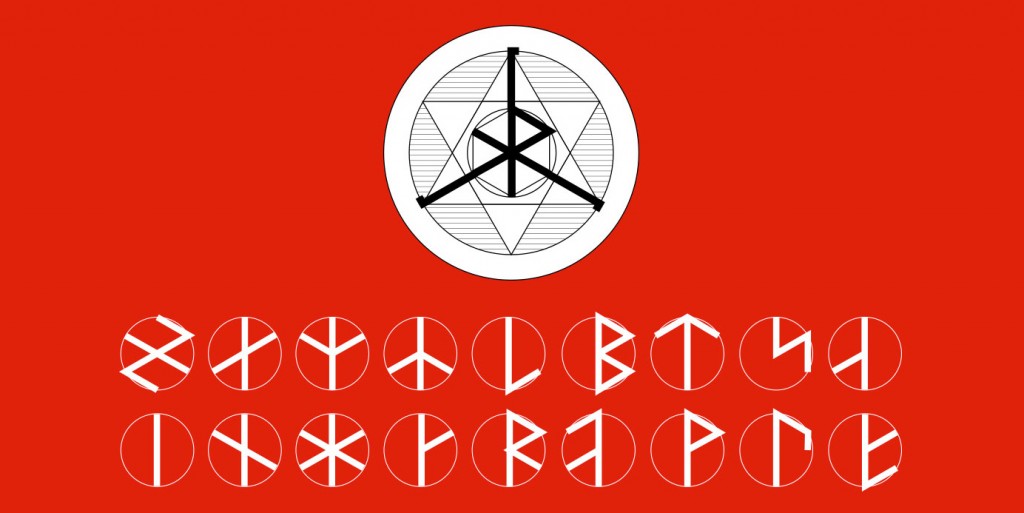
Name: Weltschrift
Designers: Vito Bica and Selma Köran
Foundry: Vito Bica
Release Date: April 2016
Back story: How do type designers fight racism? What’s the most powerful weapon at their disposal? That’s something Bica explored with Weltschrift, a typeface he designed to make a statement against racism, specifically anti-Semitism. Bica, who is of German-Sicilian origin, started the ambitious project by researching the work of Guido von List, an early 20th-century Austrian occultist who interpreted the Elder Futhark runic alphabet used by Germanic tribes from the second to the eighth centuries. Von List developed a hexagonal typographic language in the support of Völkism, the revival of 12th-century Teutonic traditions that gained popularity in Germany just before WWI and continuing into the WWII era.
His work, in turn, influenced Nazi typography, including the double lightning bolts of the Schutzstaffel (SS), which maintained the police state of Nazi Germany under the supervision of Heinrich Himmler. Since then, the symbol has been widely adopted by white supremacists. The Nazis commandeered other runes, too, like the Wolfsangel (used as part of the divisional insignia of several SS units, including the notorious “Das Reich” Panzer Division, and incorporated by the contemporary neo-Nazi group Aryan Nations into their logo) and the Tyr (a simple arrow appropriated for the leadership schools of Hitler’s Brownshirts and an SS infantry division).
Instead of letting these marks live on as symbols of evil, Bica’s new typeface gives them new meaning, subverting the Nazi’s approach to iconography by embedding parts of the runic-derived signs into Weltschrift’s letterforms—and then using the typeface to create anti-hate posters. What’s more powerful than owning and reappropriating the language of your oppressors?
Of course, not everyone sees it that way. According to Steve Heller, author of Iron Fists: Branding the 20th Century Totalitarian State, “The problem with fighting a war against war or designing a typeface against racism or prejudice, at least in this case, is that the same images and symbols the Nazis usurped are used. The Runes were not originally anti-Semitic. The swastika, at one time, had positive implications. But add red and black and [other] aggressive characteristics and the meaning is compromised… the letters remain tied to Nazism.”
Why’s it called Weltschrift? Weltschrift means “World Type” in German, an ironic reference to the title of a 1938 book, German as a World Language, which championed making German the primary language across the globe.
What are its distinguishing characteristics? This typeface is pointy, barbed, aggressive, and all around harsh-looking. It also has kind of a metaphoric narrative quality from the hidden symbols within its characters.
What should I use it for? Its very specific design limits the ways it can be used, but also makes it an appropriate choice for editorial headlines on stories that deal with race and prejudice. Too heavy for running text, this display face is probably best for posters and publications when you feel the need to really shout to get a message across.
Who’s it friends with? Best to keep its companions simple and ultra-legible. The Nazis came to accept Modernist typefaces once they realized that their beloved blackletter fonts such as Fette Fraktur were hard to read in propaganda posters and handbills; by 1935 they were using faces like Paul Renner’s Antiqua and Futura, and Akzidenz Grotesk. Pairing any of these with Weltschrift can be seen as an extra slap at hatred, by using these old choices in direct opposition to the original evil intent.